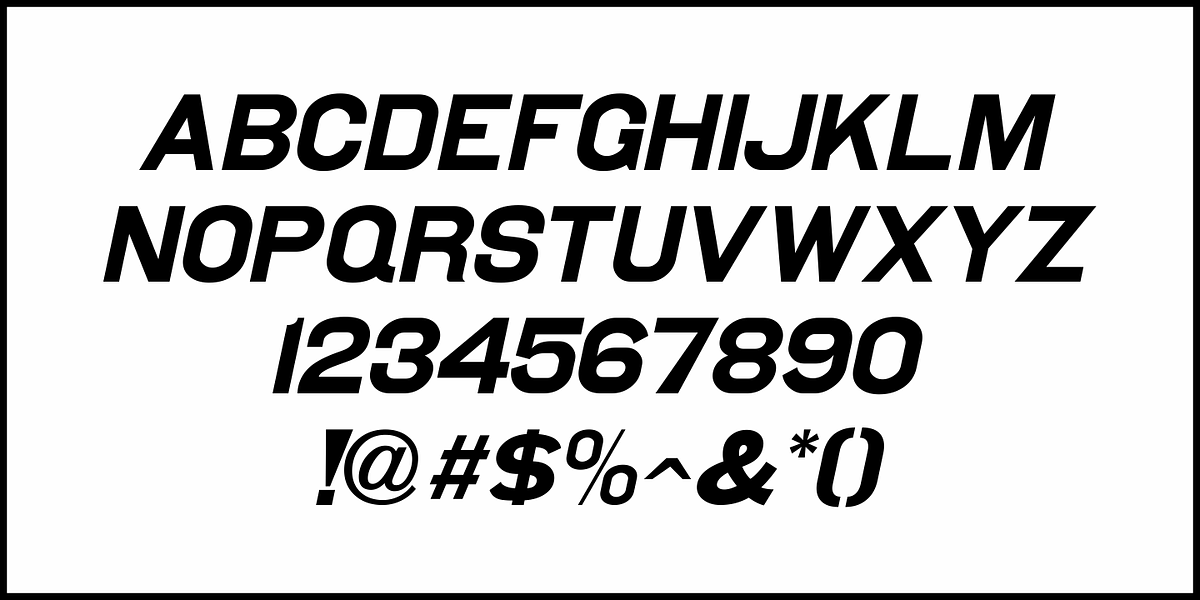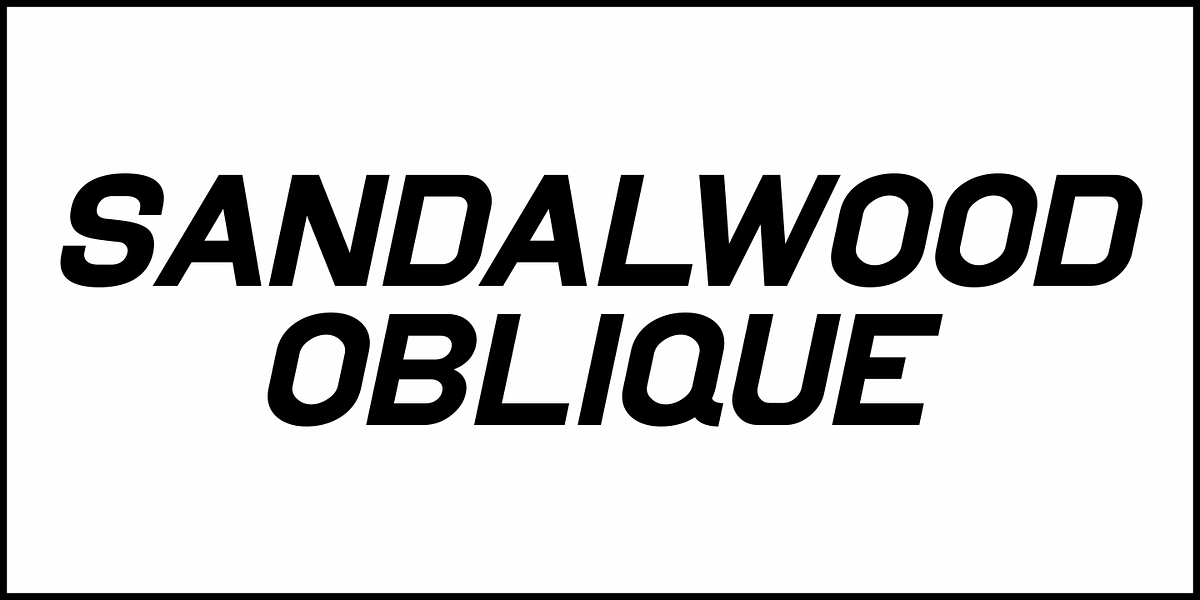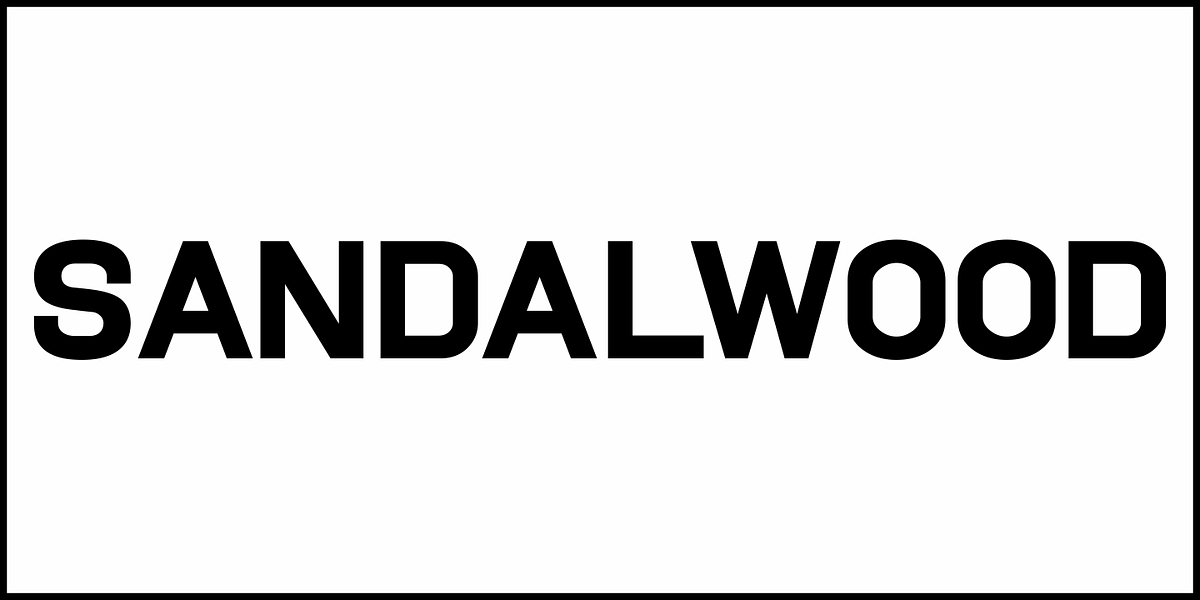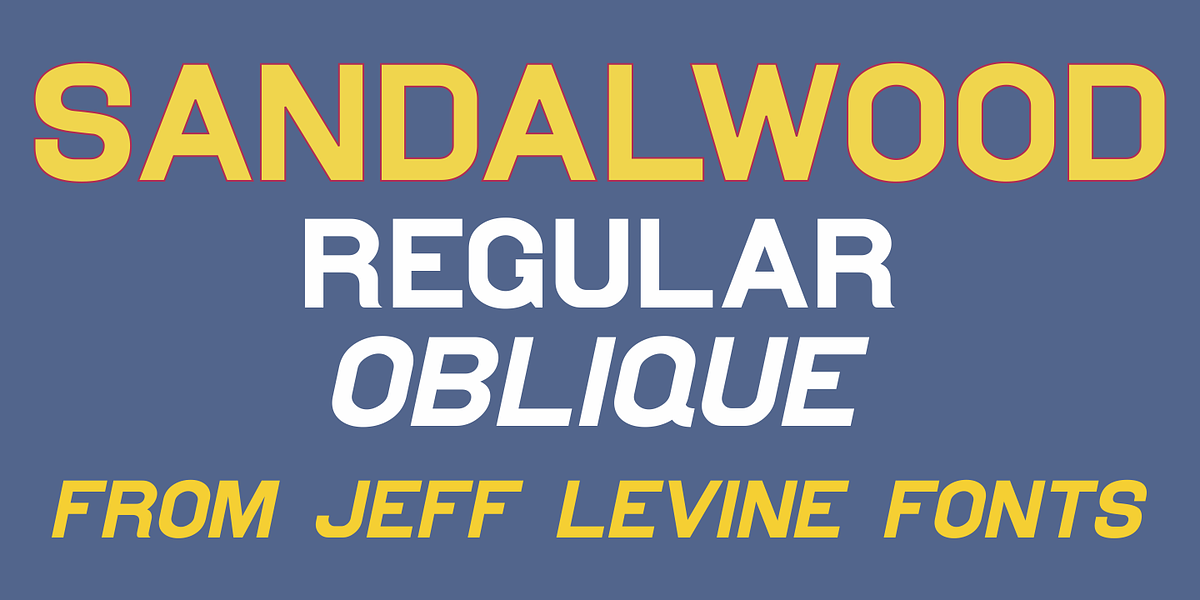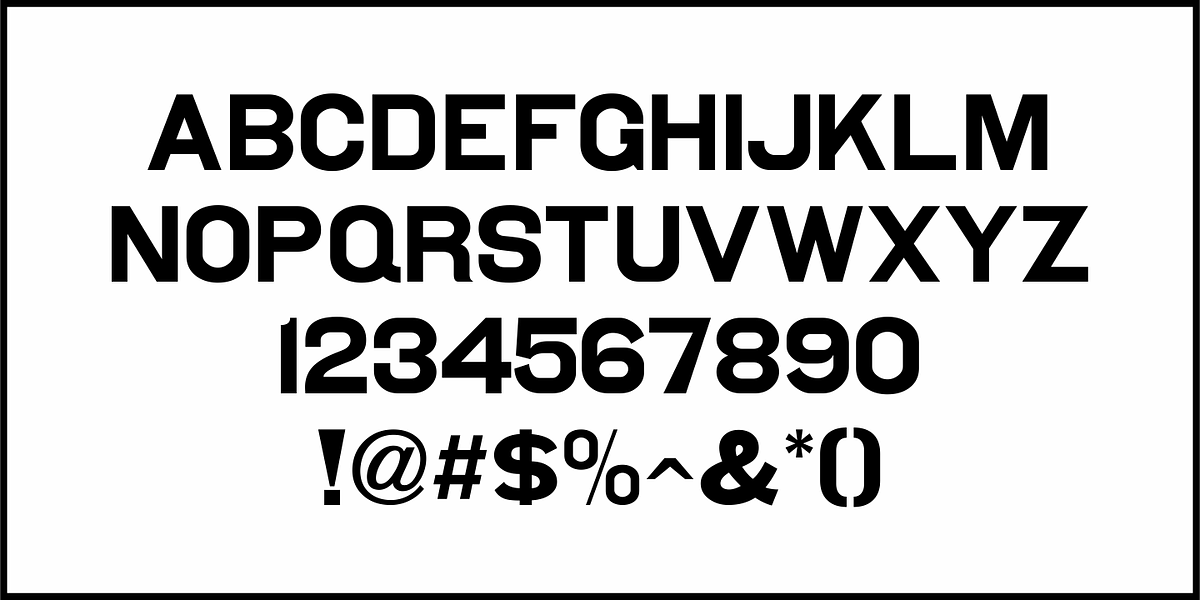
Sandalwood JNL
An example of an antique sans serif wood type displayed in Rob Roy Kelly’s “American Wood Type” was the working model for Sandalwood JNL, which is available in both regular and oblique versions.